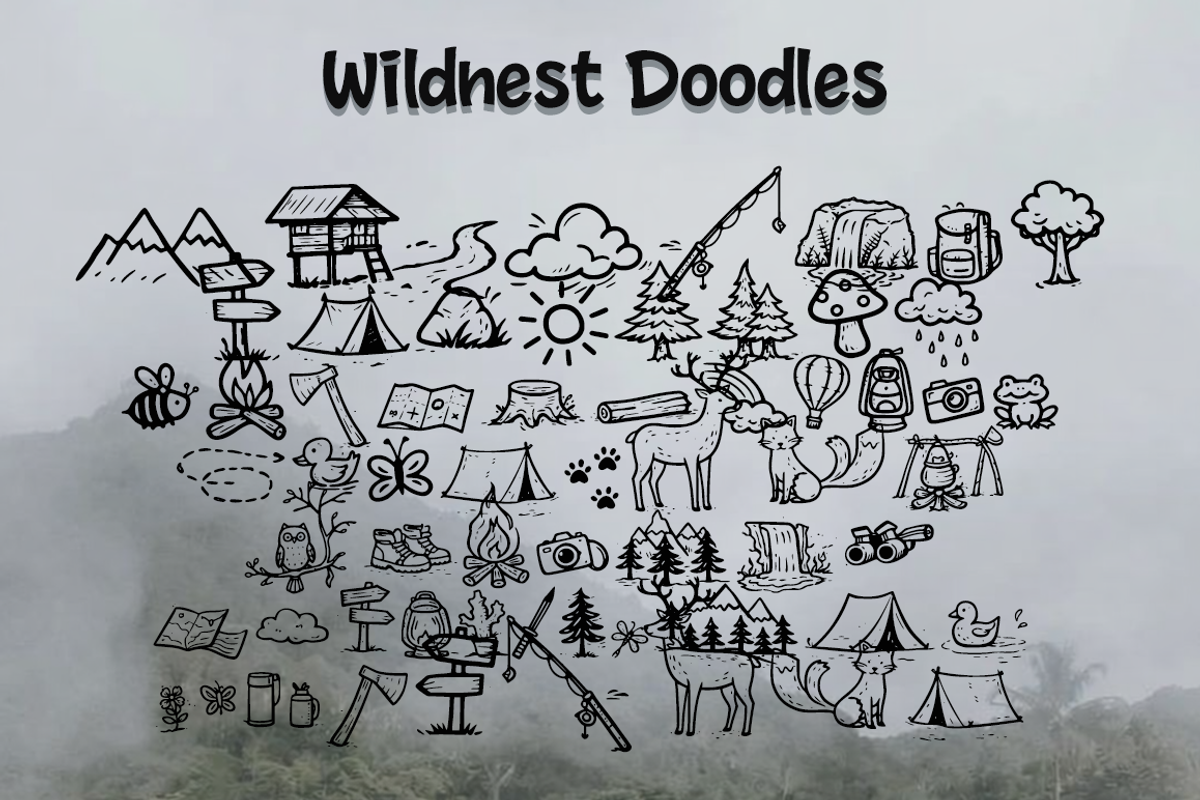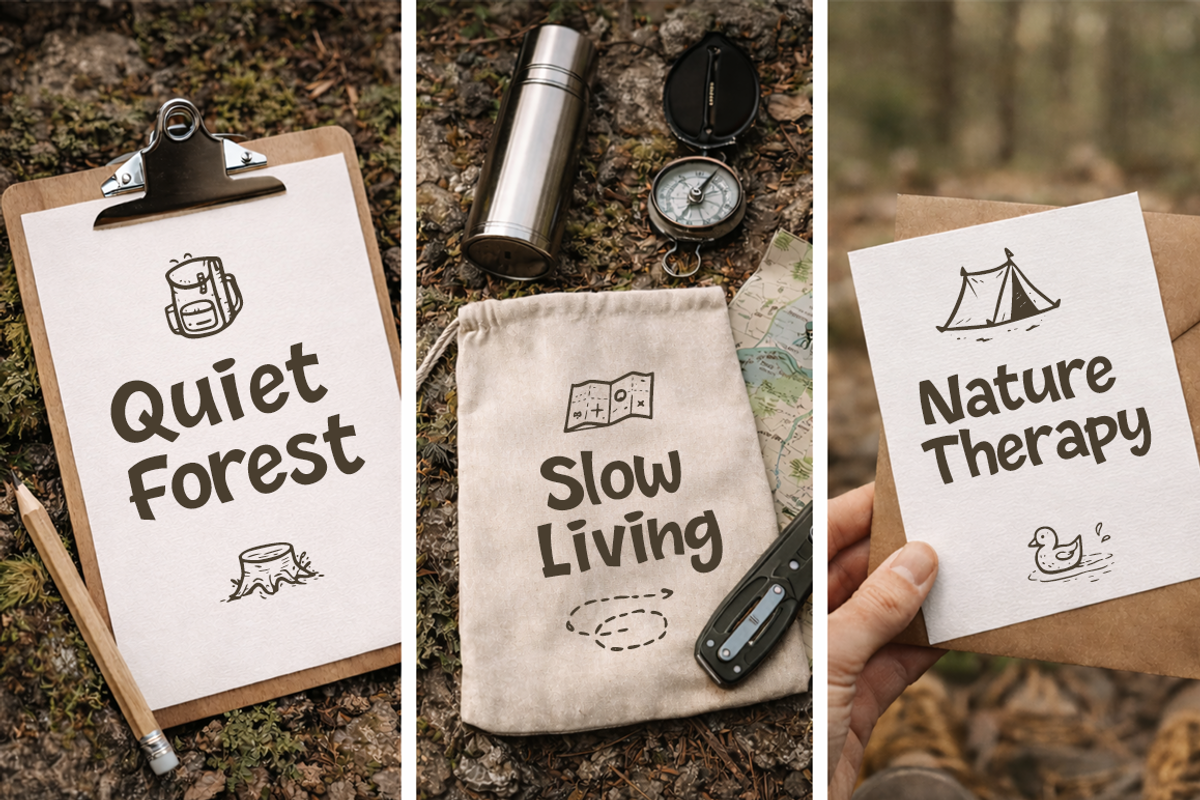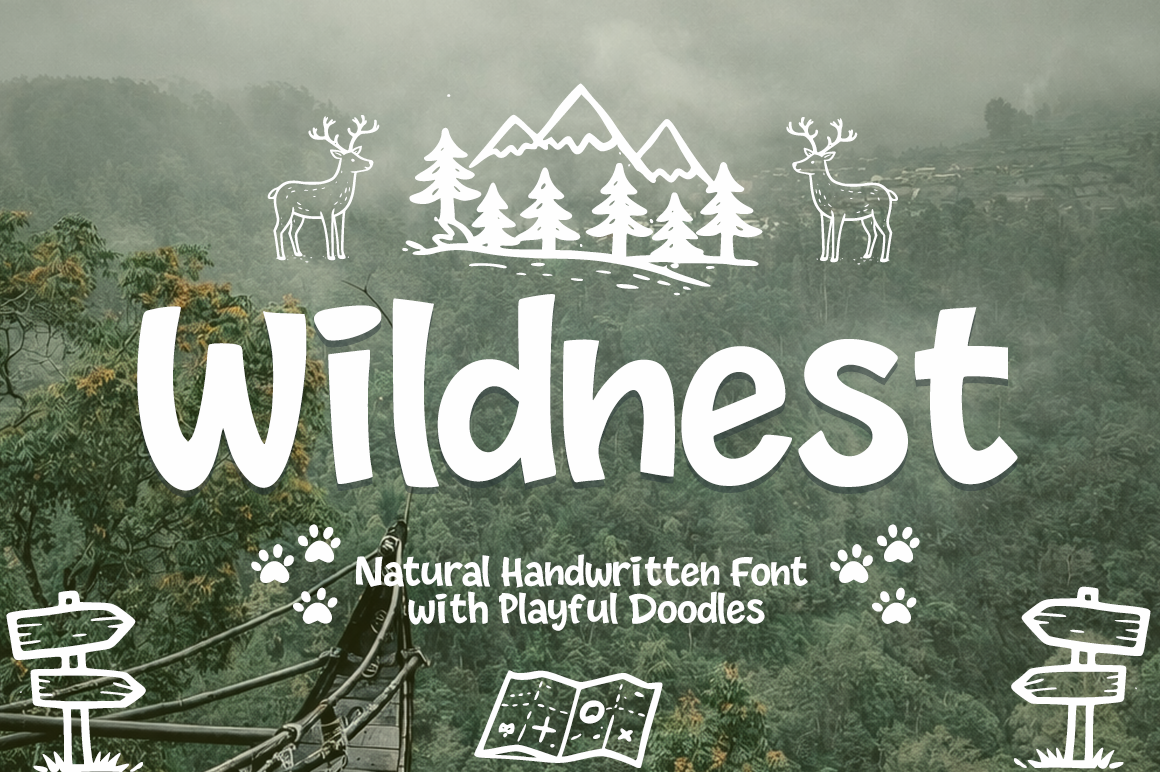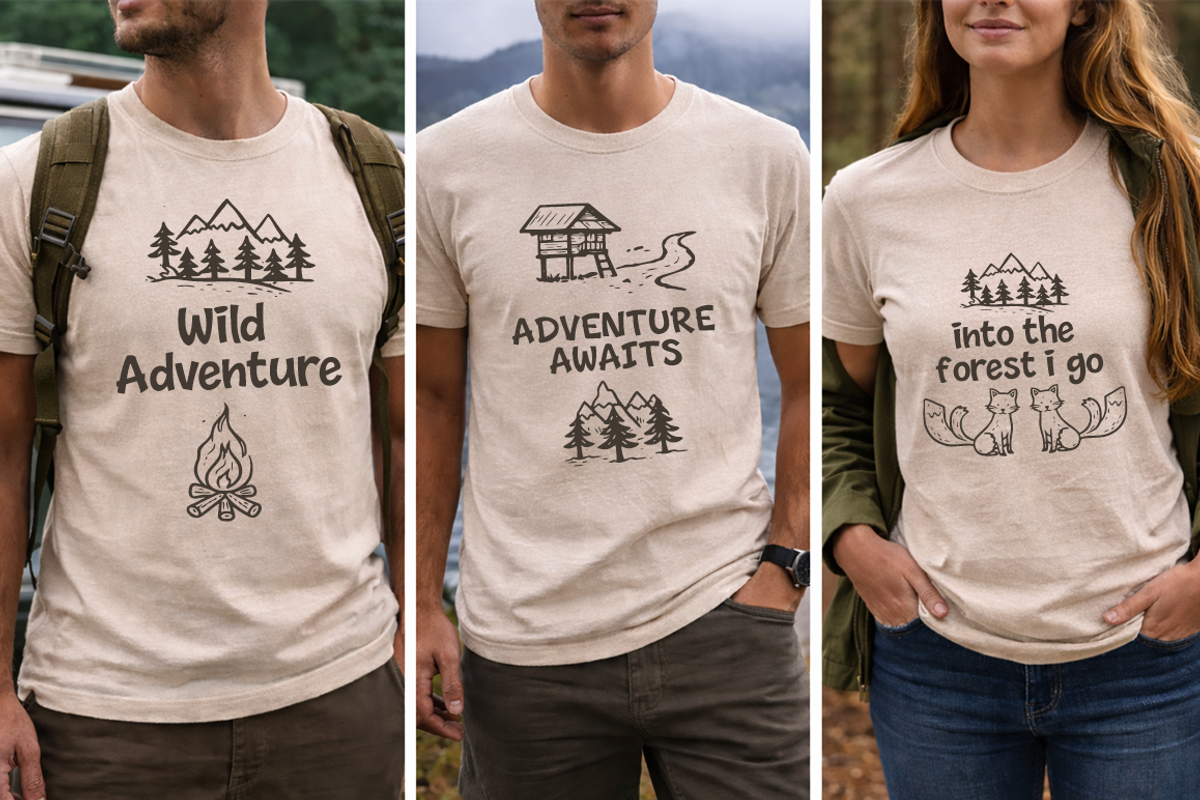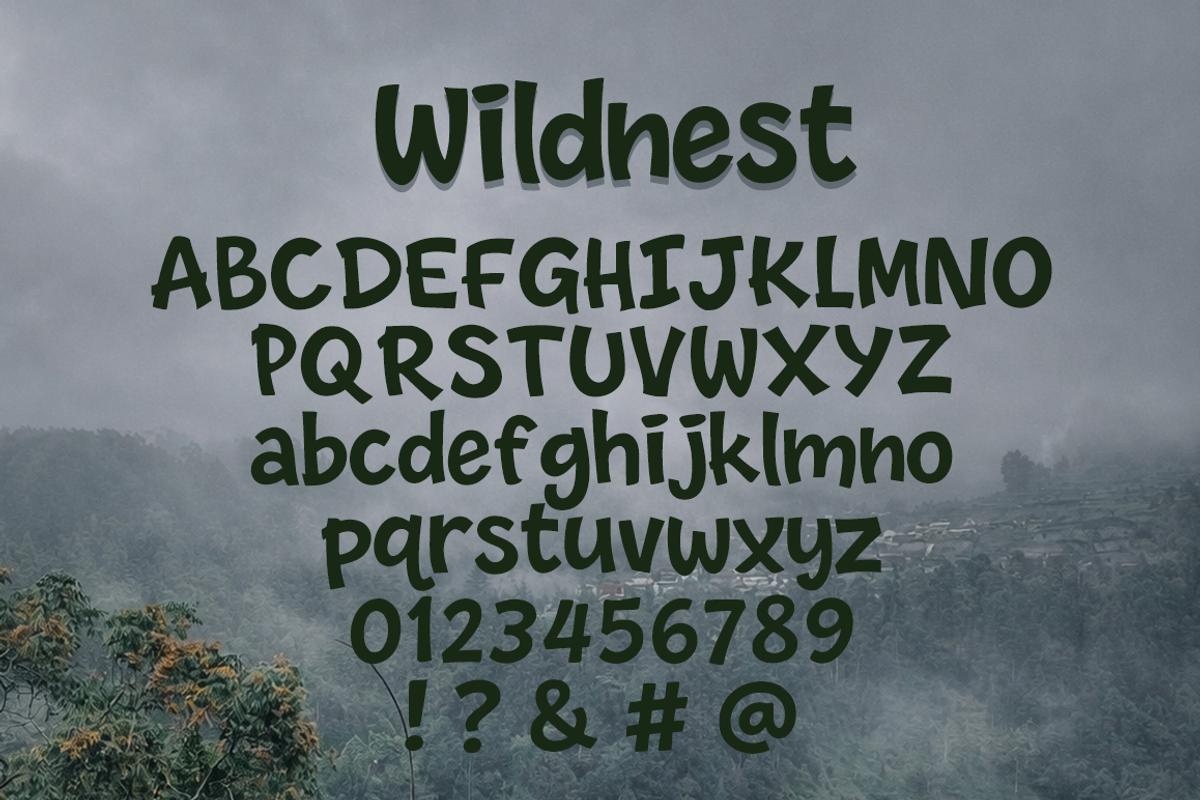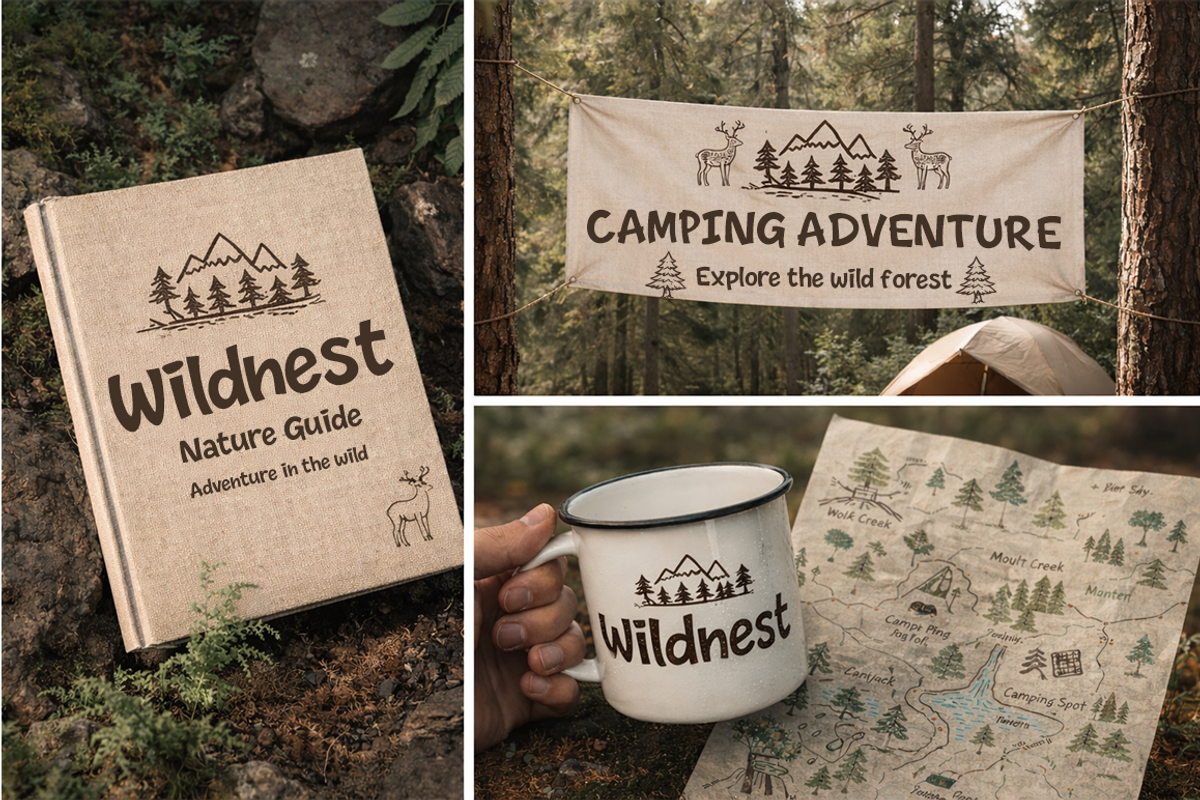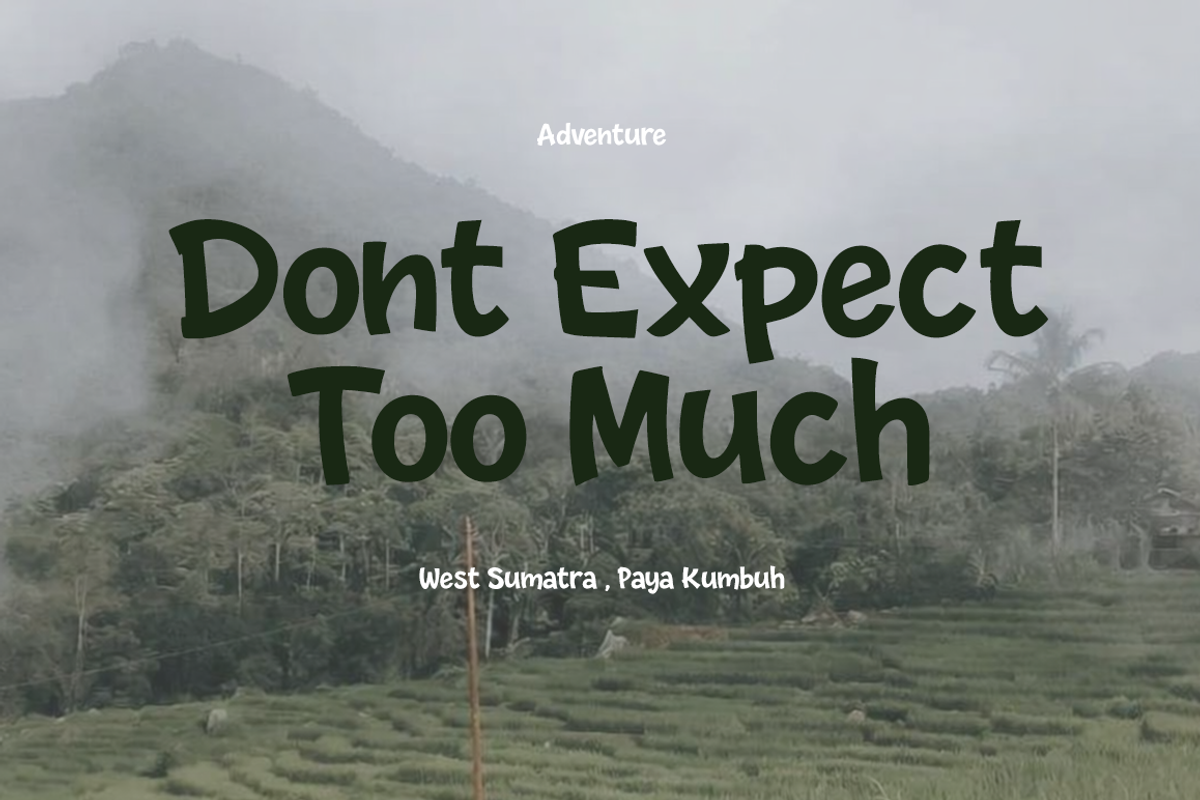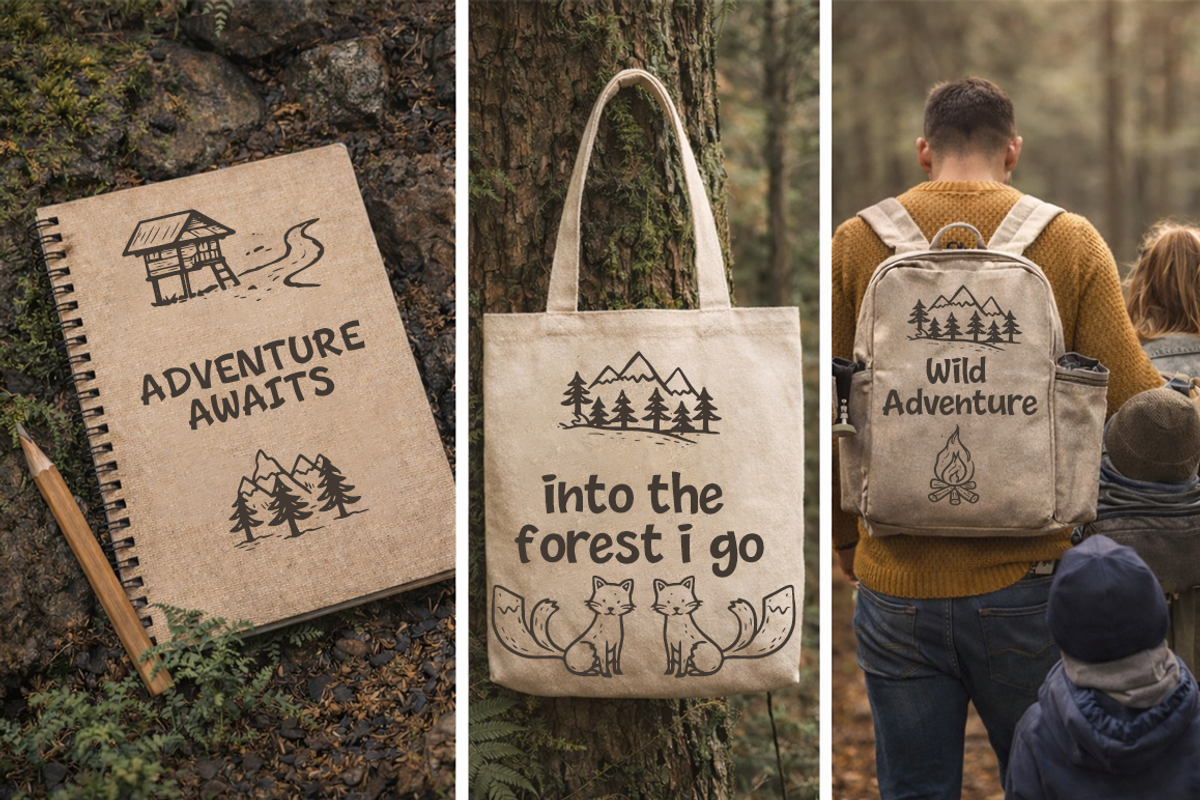
Wildnest Natural Handwritten Font
Wildnest – Natural Handwritten Font with Playful Doodles Wildnest is a natural handwritten font inspired by outdoor adventures, forest landscapes, and peaceful moments in nature. Designed with smooth strokes and playful character, this font brings a warm, organic feeling that works perfectly for creative and lifestyle designs.
This font includes charming doodle elements such as trees, mountains, animals, and nature symbols, making it ideal for branding, quotes, packaging, posters, apparel, social media, and outdoor-themed projects.
Wildnest blends simplicity and creativity, offering a friendly and authentic look that enhances both digital and print designs.